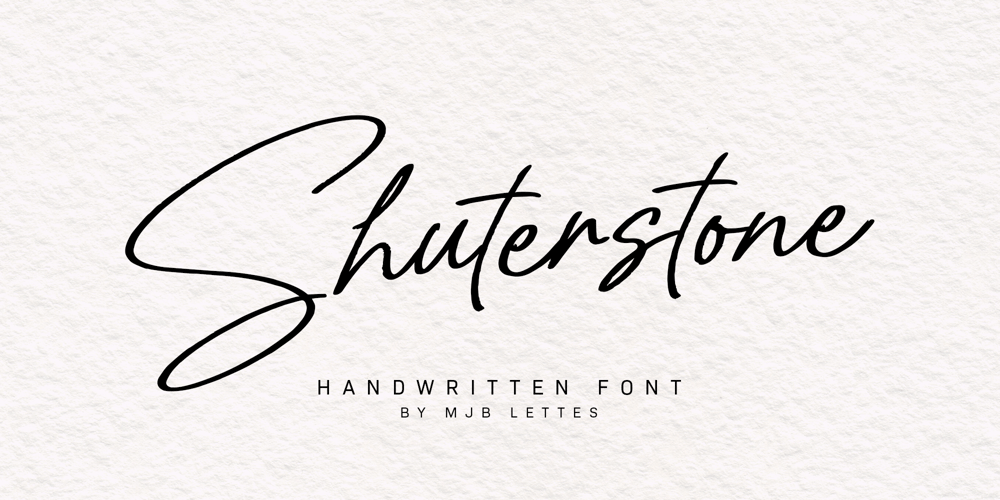
Shuterstone
Shuterstone font
Shuterstone Font Family was designed by Muhammad Mujibulloh and published by MJB Letters. Shuterstone contains 1 styles and family package options. Shuterstone is a modern handwritten script with a natural handwritting touch, all the uppercase character are designed to be unique, so it will give great impression to the design, this font is perfect logo design, signature, wedding deisgn, fashion design, branding material, posters, business card, stationery, watermark, and more.Shuterstone has multilanguage support and it’s PUA encoded which means you can access all glyphs and alternates with ease! Works on PC & Mac Simple installations Accessible in Adobe Illustrator, Adobe Photoshop, Adobe InDesign, even work on Microsoft Word. PUA Encoded Characters – Fully accessible without additional design software